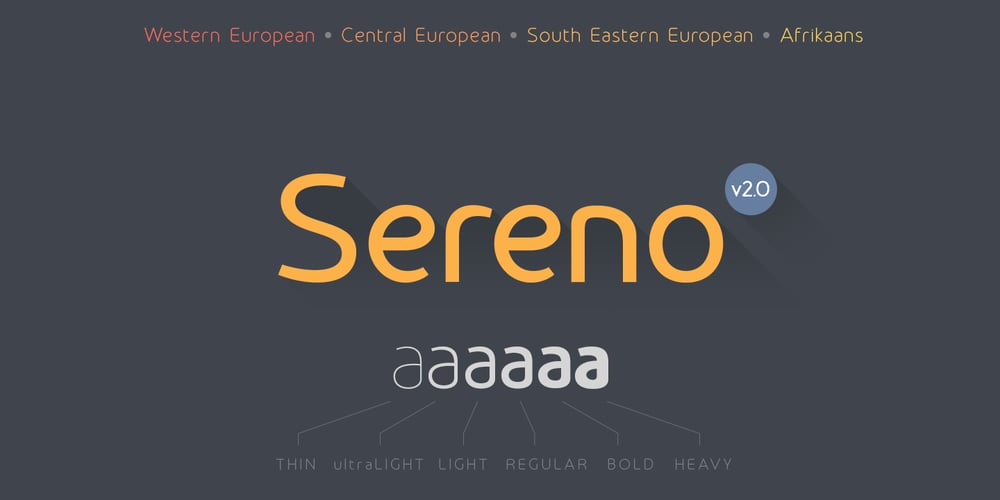
Sereno Font Family was designed by Robert Corseanschi and published by Robert Corseanschi. Sereno contains 12 styles and family package options. This font family includes six very unique font styles & weights. The font styles are applicable for any type of graphic design – web, print, motion graphics, etc. and perfect for t-shirts and other items like posters and logos.